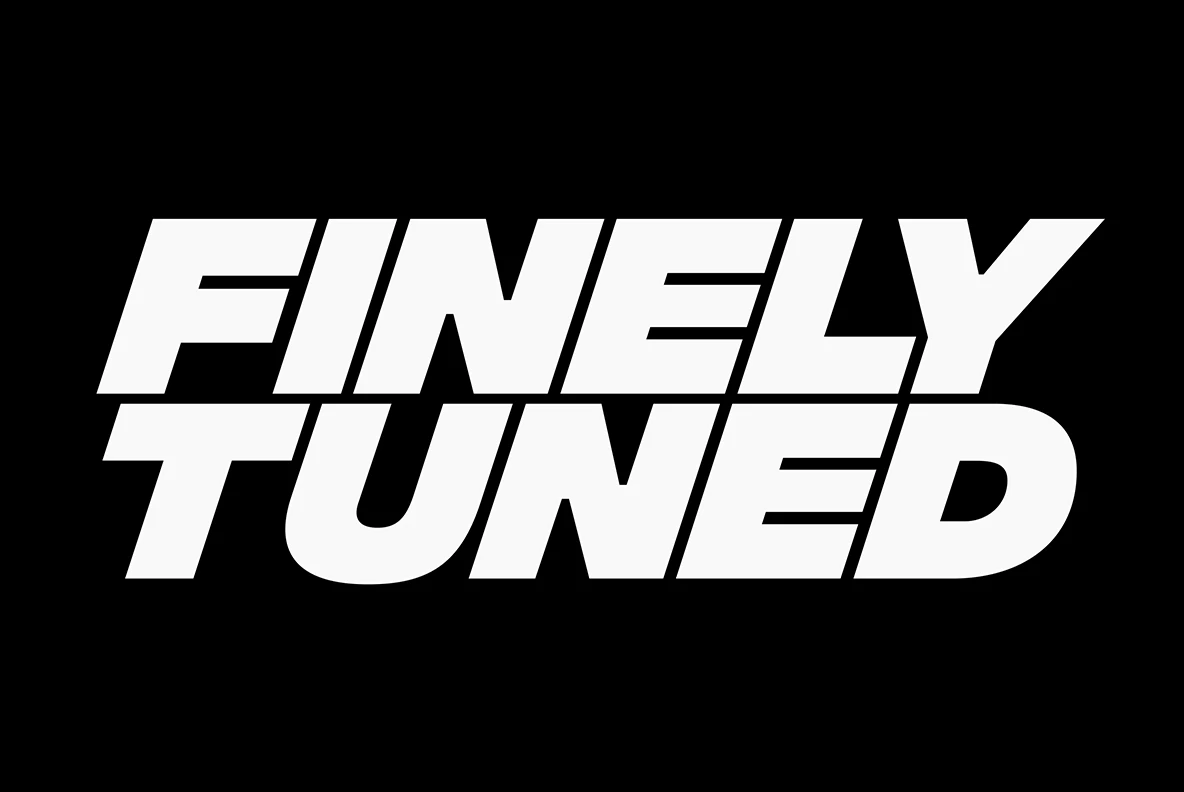
At YouWorkForThem, we appreciate the impact Swiss Style has had on design, modern font design and typography. To celebrate its enduring influence, we’ve put together this comprehensive guide to help you understand and embrace the principles of Swiss Style in your own creative work. In this article, we’ll delve into the history, key features, and contemporary applications of Swiss Style, while showcasing a selection of our meticulously crafted font designs that embody its core values.
Introduction to Swiss Style
Swiss Style, also known as the International Typographic Style, is perhaps the most important design style to come out of the 20th century. Known for its clean, minimalist architecture and high legibility, Swiss Style is virtually everywhere you look, from street signs to website designs and modern fonts, and every place in between.
The idea behind Swiss Style, much like its architecture, is simple: type should carry itself with clarity and neutrality, and have an emphasis on function over form. A perfect example of this can be seen in Helvetica, one of the most well known type designs of our modern world. In fact, the term, “helvetica,” actually means “Swiss,” based on the Latin translation for the word, “Switzerland.”
The Birth of Helvetica
Designed by Max Miedinger and Eduard Hoffmann, Helvetica was designed to be clean, neutral, and highly legible, a type design that could be used on a wide range of signage and displays, and one that would enable every message to be conveyed completely unhindered by unnecessary ornamentation. And that was kind of the whole point of the Swiss Style: the meaning comes not from a font’s design or architecture, but from the content of its message alone.
The Origins and Evolution of Swiss Style
Slideshow: New Highway by Samuel Powell
The Swiss Style really took off during the 1950s, although its roots actually date back to the late 1890s when Berthold Type Foundry released Akzidenz Grotesk. That design sort of set the standard for conveying a message directly and without flourish or superfluous personality that might tip the mood in one direction or another.
Swiss Style favors asymmetric layouts and sans serif character structure built around a mathematically designed grid. The Swiss Style movement really began to pick up speed under the leadership of Josef Müller-Brockmann and Armin Hofmann, instructors at two of Switzerland’s most prestigious art schools, the Zurich School of Arts and Krafts and the Basel School of Design, respectively.
Influential Figures in Swiss Style
Both men studied under Ernst Keller in Zurich, a typographer and teacher who was considered to be at the forefront of the International Typographic Style. Ernst was of the opinion that any design solution should remain respectful of its content, embracing the modernist standard that function should always come before form. Design should be “invisible,” at least in the sense that the designer’s own artistry is held in check, ensuring that the content – and only the content – receives the spotlight.
Many of the features of Swiss Style are commonly used in contemporary design applications, particularly because of their clean, no-nonsense aesthetic. Type designs crafted in the Swiss Style are of particularly smart use in modern design projects like corporate communications that require a neutral tone, and website designs or mobile applications that require legibility on smaller displays.
YouWorkForThem offers a wide variety of beautifully crafted font designs that embrace the Swiss Style typography mantra. Explore our collection and bring the timeless elegance of Swiss Style to your next design project.
Integral CF: Bold Swiss Style for Maximum Impact
If your project calls for a ridiculously strong sans serif designed in the Swiss style, Connary Fagen’s Integral CF is the perfect solution. Integral CF was designed to create a visual impact, featuring robust all-caps lettering that gets noticed. This type design is available in six weights with matching obliques and is well suited to displays, signage, titling, headlines, book covers, posters, product packaging, logos, branding, and identity projects.
Hando – The Sleek and Futuristic Neo Grotesk Typeface
Hando is a versatile Neo Grotesk typeface that offers a wide range of design possibilities. Its low x-height and light size options make it a great choice for reading, while its legibility is enhanced by the tenuous white spaces in the counter letterforms. The curve tensions on the circular letterforms give it a futuristic impression, while its sleek and simple strokes make it perfect for a broad range of design purposes. Hando consists of 10 styles from Hairline to Black, each with a matching oblique, and includes over 440 glyphs that support a broad range of Latin languages. It also includes several OpenType features such as stylistic alternates and variations of figures.
Eloquia: Embracing Swiss Style with Geometric Elegance
Eloquia is a neo-grotesque, geometric sans serif typeface that embodies the principles of Swiss Style design. With its 34 distinct fonts, Eloquia offers both Text and Display styles, ensuring high legibility in various applications, from headlines to smaller text. The typeface masterfully balances neutrality and modernism, making it a versatile choice for various design projects. Eloquia’s extensive OpenType features and support for over 88 languages, including all major Latin languages, further solidify its position as a Swiss Style-inspired font perfect for contemporary use.
Akwe Pro: A Swiss-Inspired Sans-Serif Font
Akwe Pro from Roch Modrzejewski is a professional, ultra versatile sans serif typeface that pairs the excellent legibility of traditional Swiss Style with a modern architecture that’s perfect for design projects of all kinds. Akwe Pro is a superfamily of 164 fonts in Akwe Pro, Extended, Narrow, and Condensed widths. Each weight is available in upright, true italic, and small caps variations. Akwe Pro is ideal for just about any graphic design project you can dream up, including headlines, editorials, web copy, traditional and digital publishing, mobile app design, logos, corporate communications, white papers, infographics, presentations, product packaging and informational inserts, branding, and identity.
Harnessing Swiss Style Principles with YouWorkForThem Fonts
The Swiss Style has had a profound influence on the world of typography and graphic design. Its minimalist, functional approach has paved the way for a plethora of versatile fonts, each carrying the essence of Swiss Style principles. YouWorkForThem, a trusted source for graphic design resources since 2001, offers a remarkable selection of Swiss-inspired typefaces to help you make a lasting impression with your creative work. With corporate clients like Apple, Amazon, and Nike, we are committed to providing the most usable and affordable fonts and stock art in the world.
Explore our extensive collection of Swiss-inspired type designs by visiting our fonts section. By understanding and embracing the Swiss Style’s rich history and design ideology, you can enhance your design projects with fonts that embody clarity, legibility, and timeless sophistication. YouWorkForThem is dedicated to making sure you have the best experience possible with our fonts and stock art, and our team is available anytime to assist with your questions or needs. Discover the perfect font to capture the essence of Swiss Style in your designs by browsing YouWorkForThem’s diverse selection today.